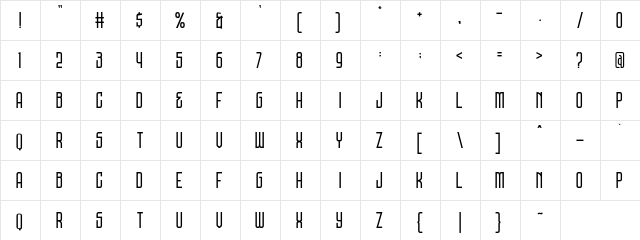
DNS Gibsons One Demo
| Foundry | DNS Studio |
| Designer | DNS Studio |
Design Context for DNS Gibsons One Typeface
DNS Gibsons One takes a measured approach to typography — its balanced proportions and neutral character make it a reliable workhorse for both digital and print work.